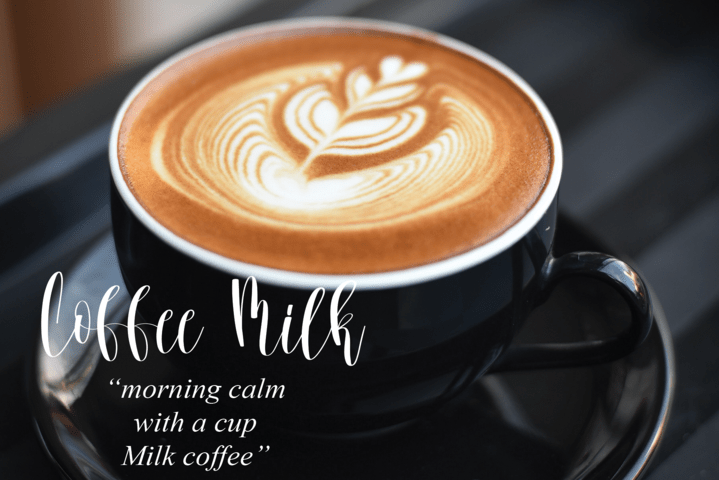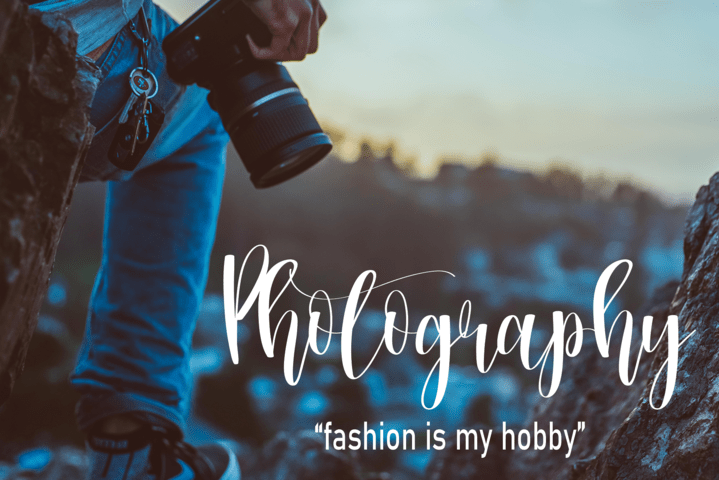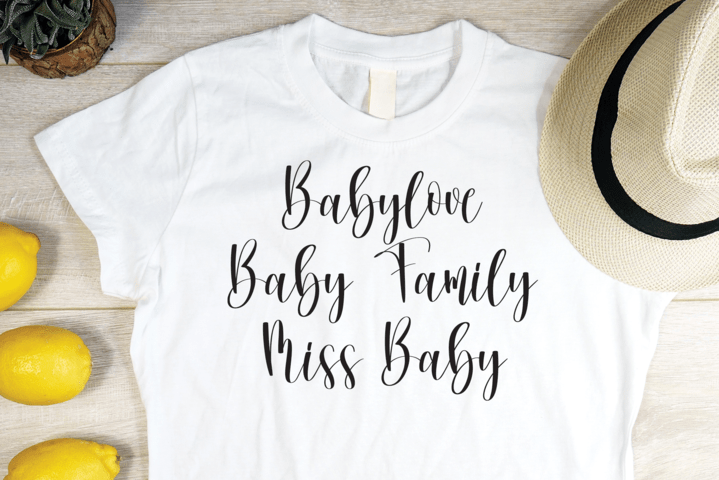
Wonderful Christmas Font
Wonderful Christmas Script Font
It’s an elegant handwritten font, perfect to use on business cards, thank you cards, wedding designs, Christmas cards, t-shirt designs, branding, quotes, and much more!